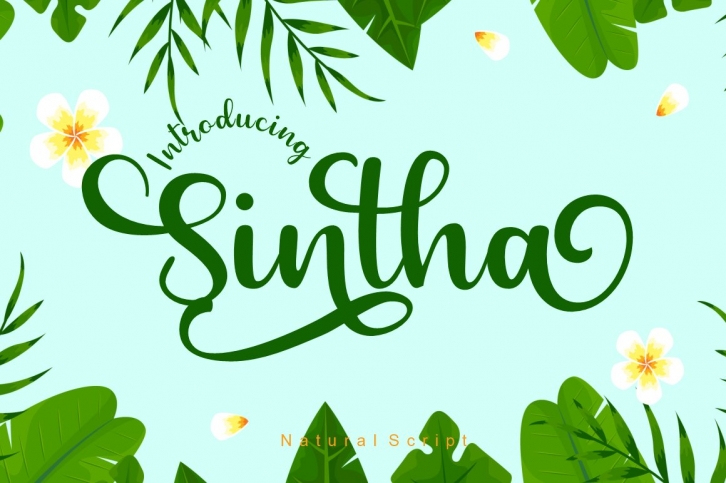
Sintha is a gorgeous font that was realeased on December 21, 2020. The font can be used in many style contexts and design environments. Perfect for invitations, magazines, websites, logos, and more! It was designed by JS STUDIO and the file size is 12.52 MB. Thanks for checking out this font!